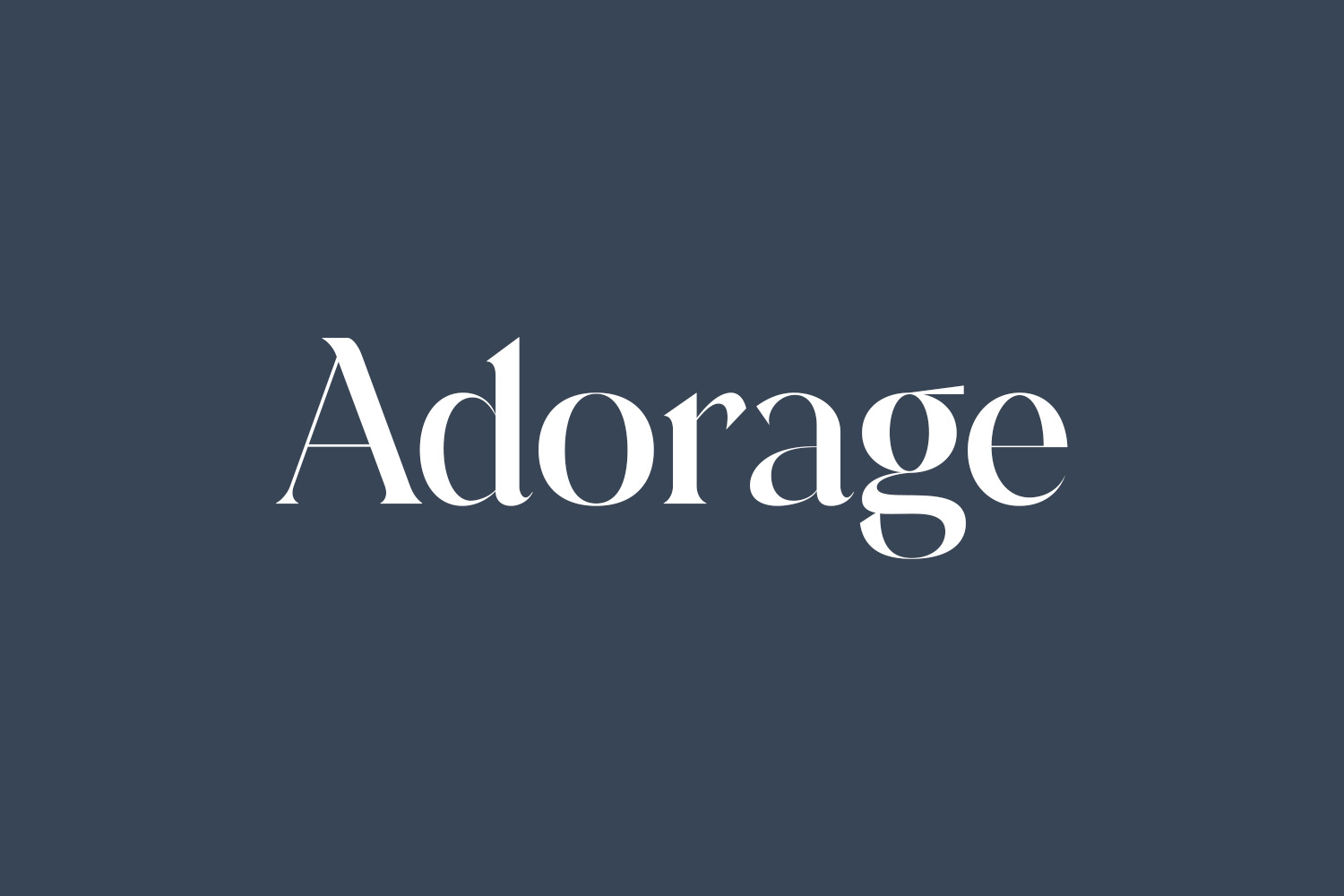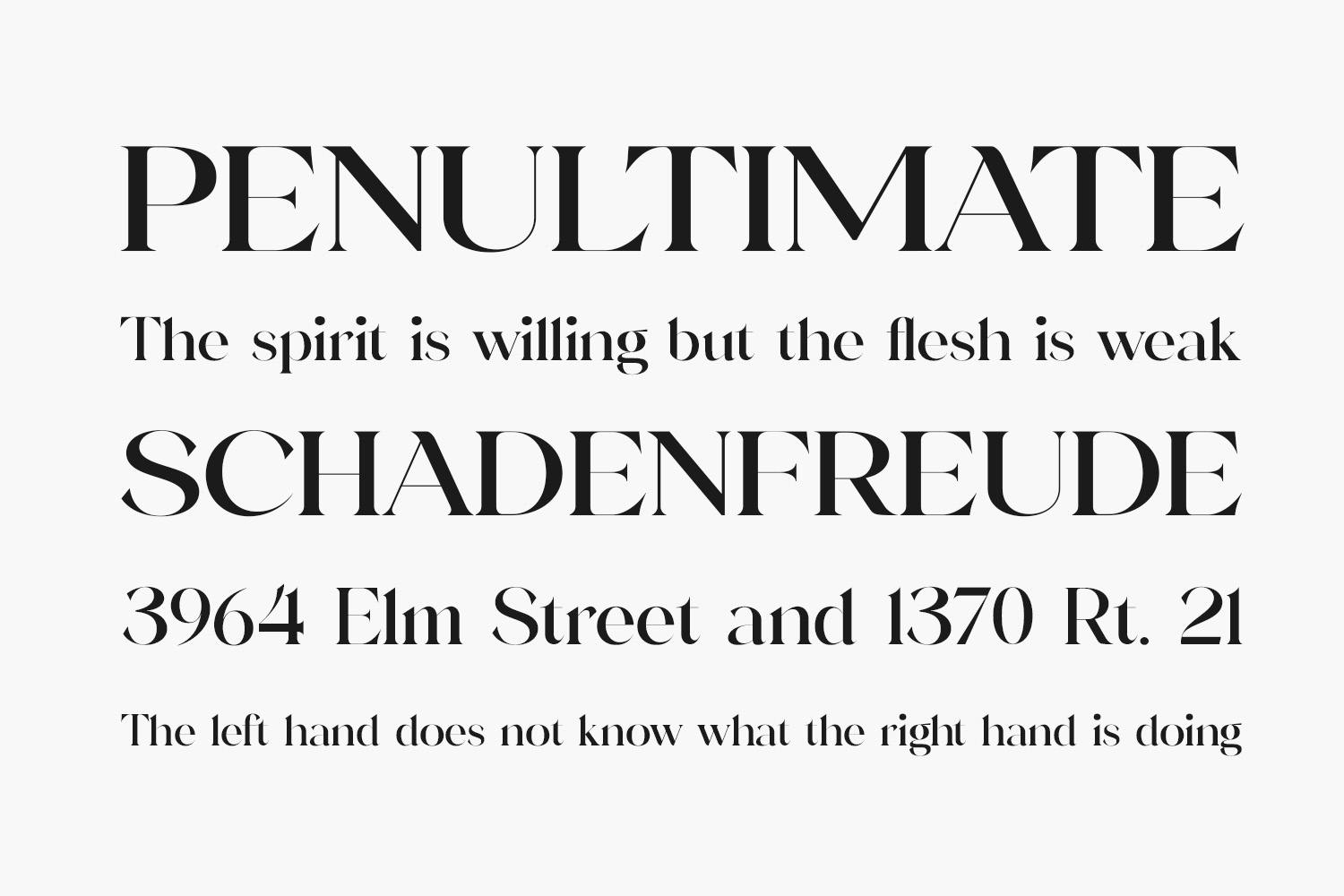
Adorage Free Font exudes a delightfully nostalgic charm, evoking a stunning vintage aesthetic. Employ this serif font to infuse a unique retro sensibility into your design concepts, enhancing their appeal and character. Adorage Free Font is free for personal use only. Please purchase the full version for commercial use.